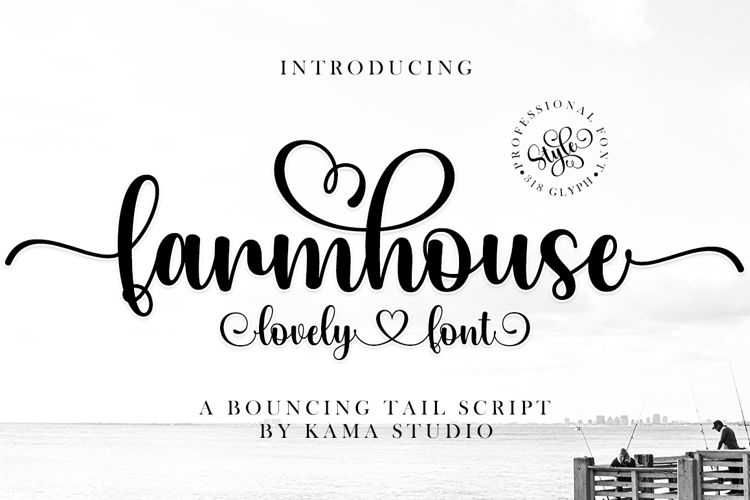
Farmhouse Bouncy - A Chrismas font duo
Farmhouse Bouncy is a duo-styled handwritten font that feels equally charming and delicate. It will turn any creative idea into a standout! You can use it for Christmas cards, wedding designs, local signs, branding, logos, quotes, photography projects, birthday cards, and more!
- Alternate swashes letter (begin swashes and end swashes)